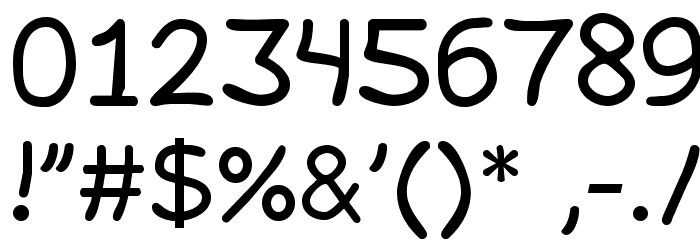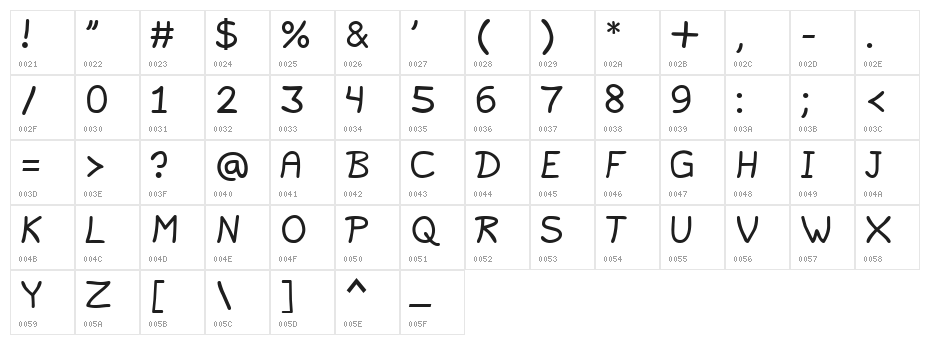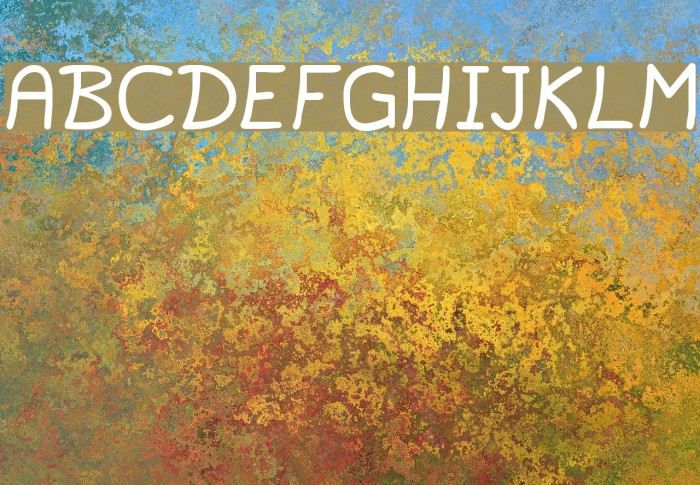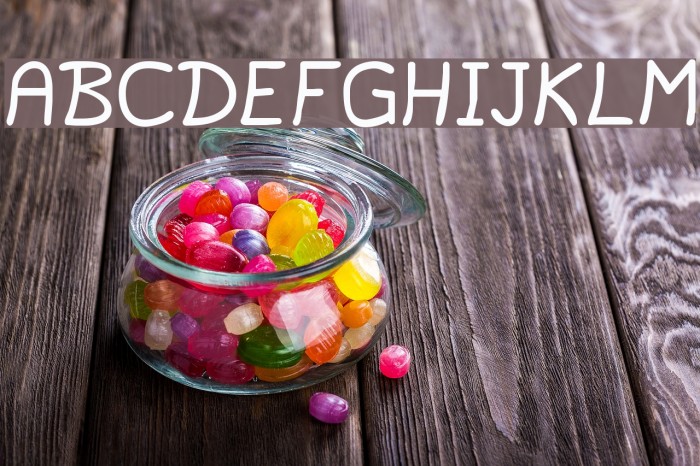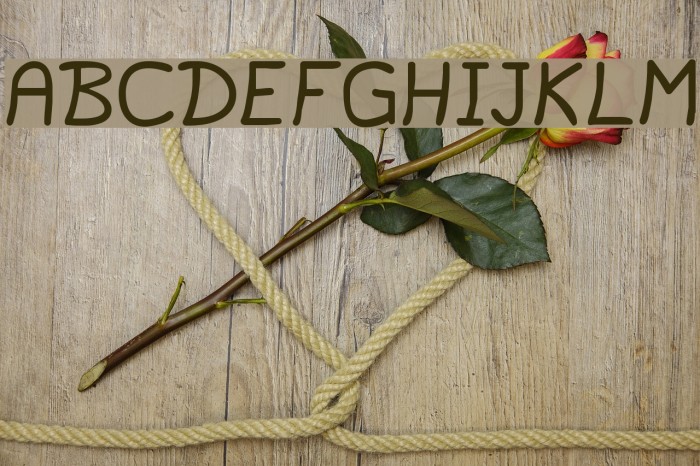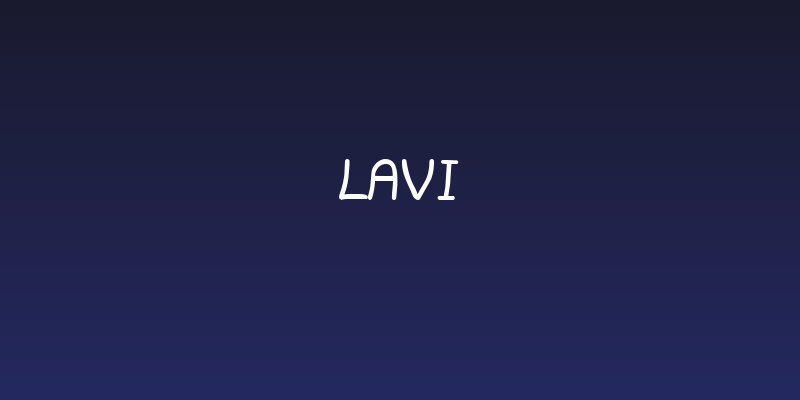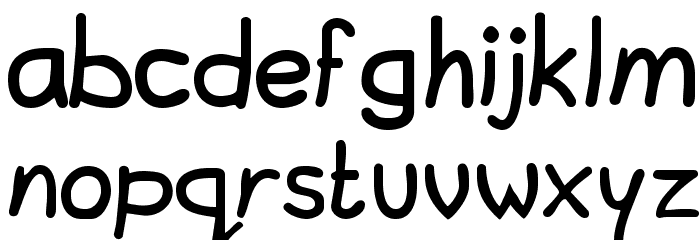
Lavi Font
Lavi Description
This playful and rounded font exudes a friendly and approachable vibe. The characters are slightly irregular, giving it a hand-drawn feel that adds a touch of whimsy. The uppercase letters maintain a consistent height, while the lowercase letters have a gentle, flowing quality. The numerals are clear and easy to read, with a uniform thickness that matches the letters. Special characters are well-integrated, maintaining the overall style. The font's informal nature makes it suitable for casual and creative projects, offering a unique charm that stands out.
Overall StylePlayful